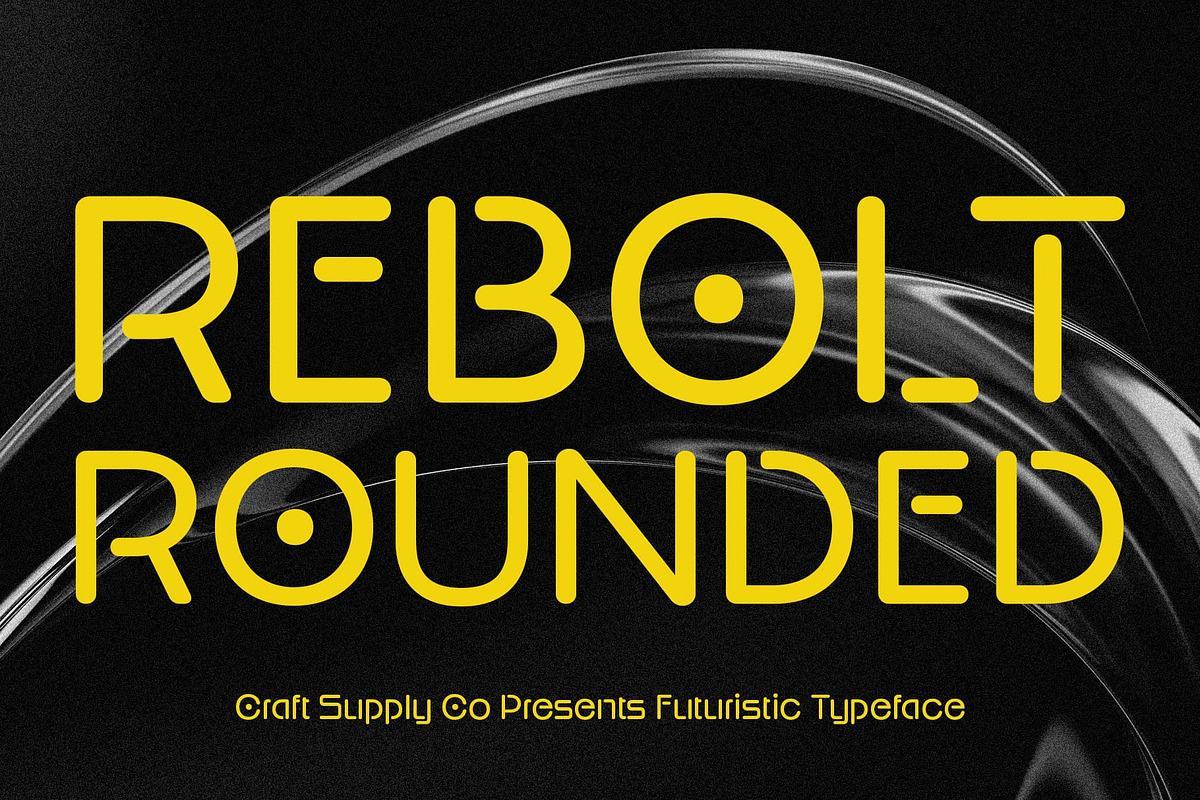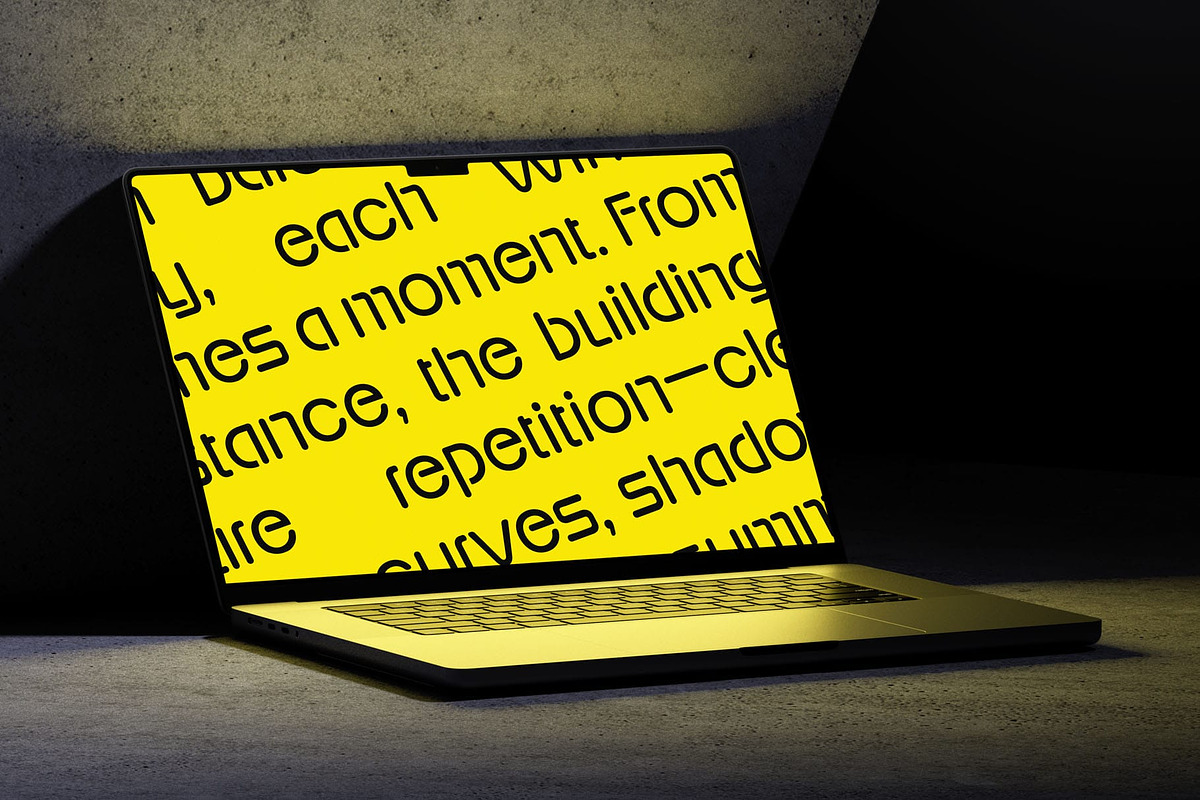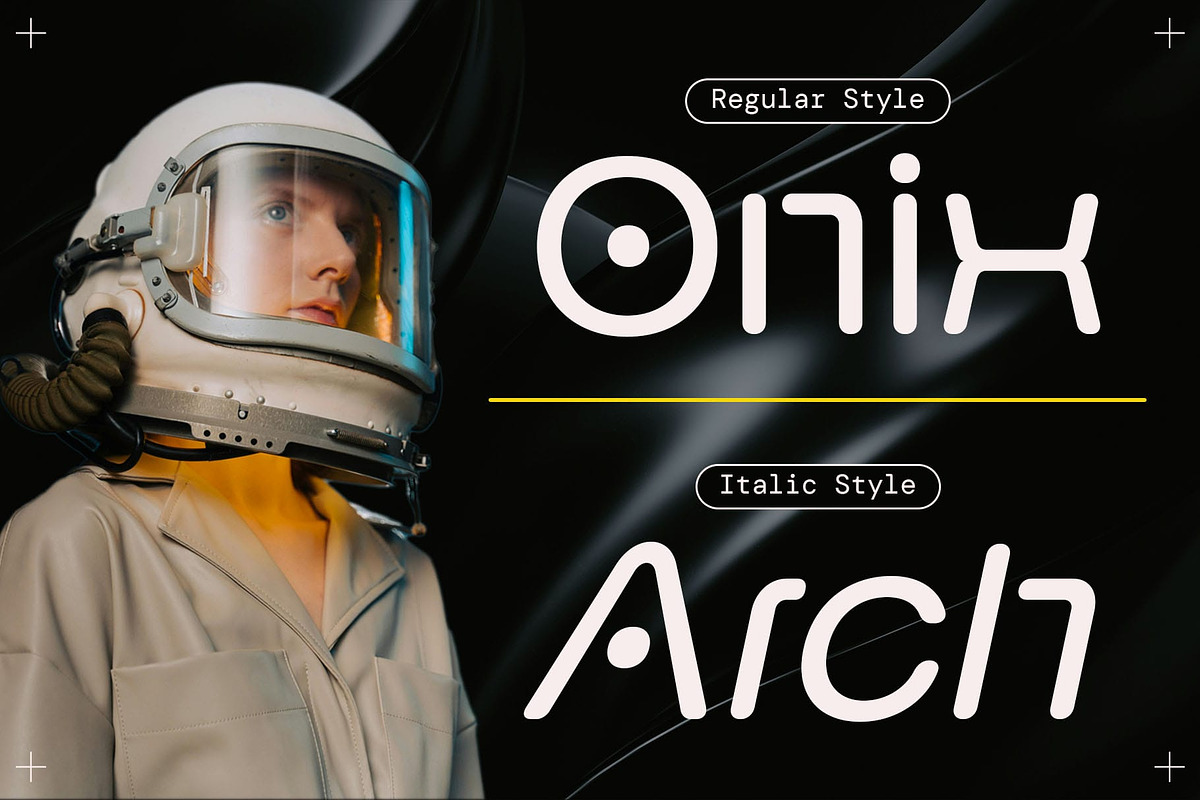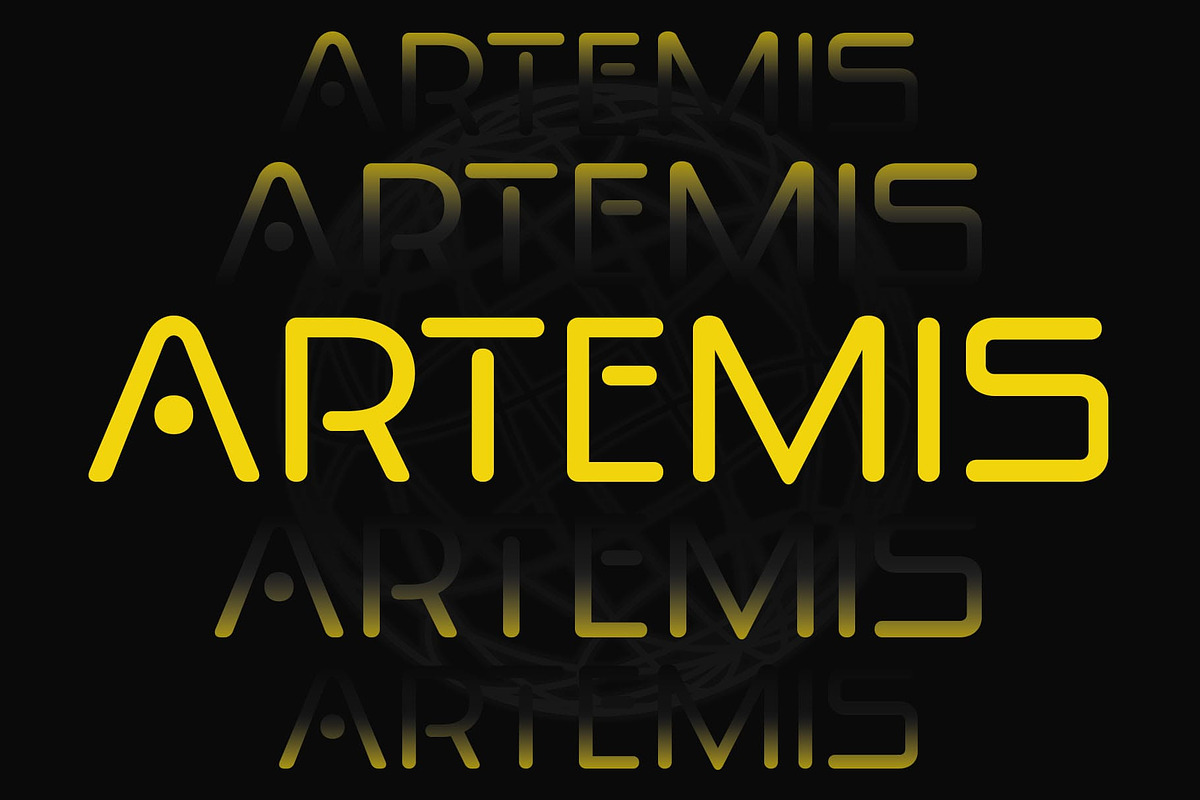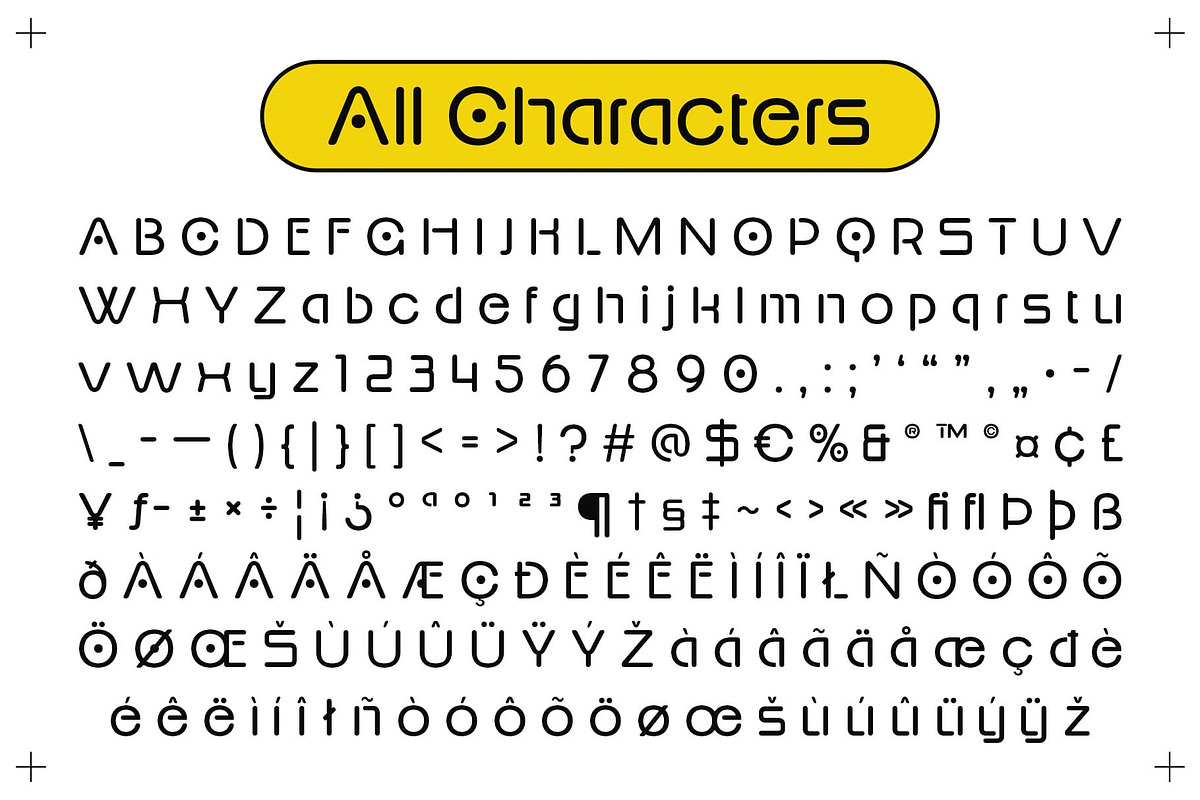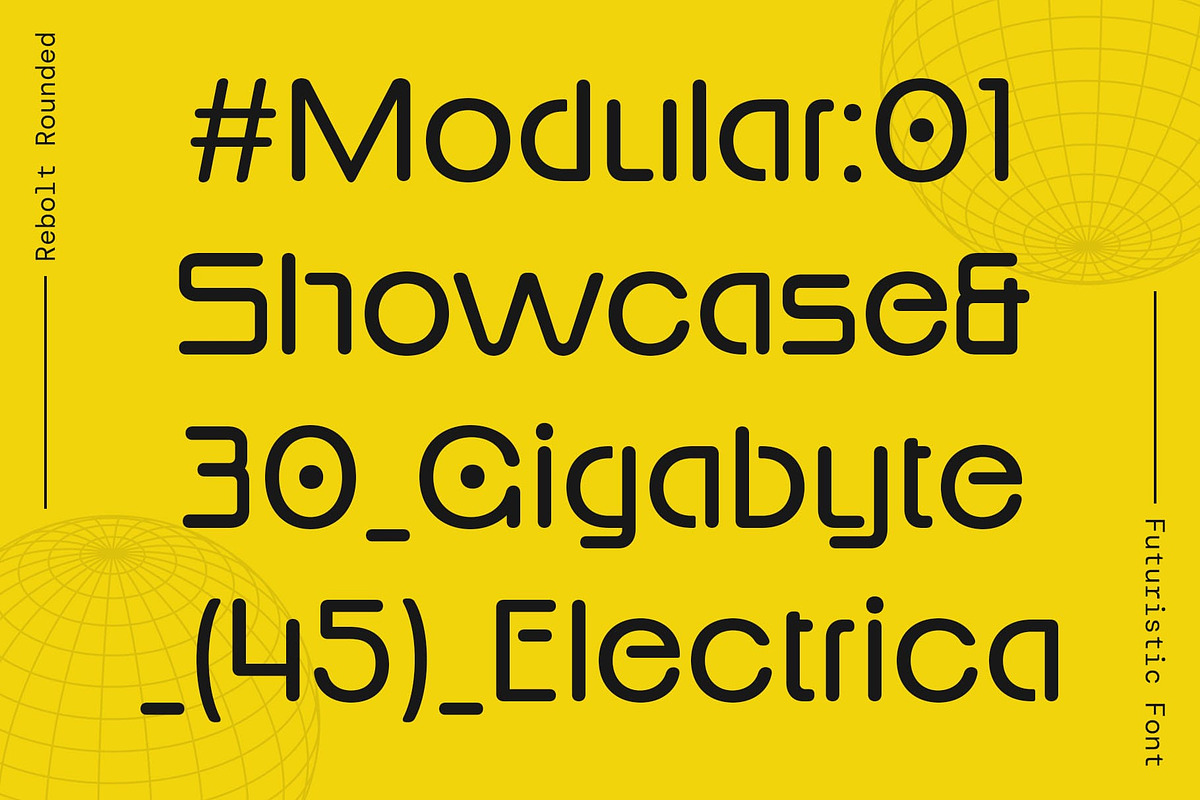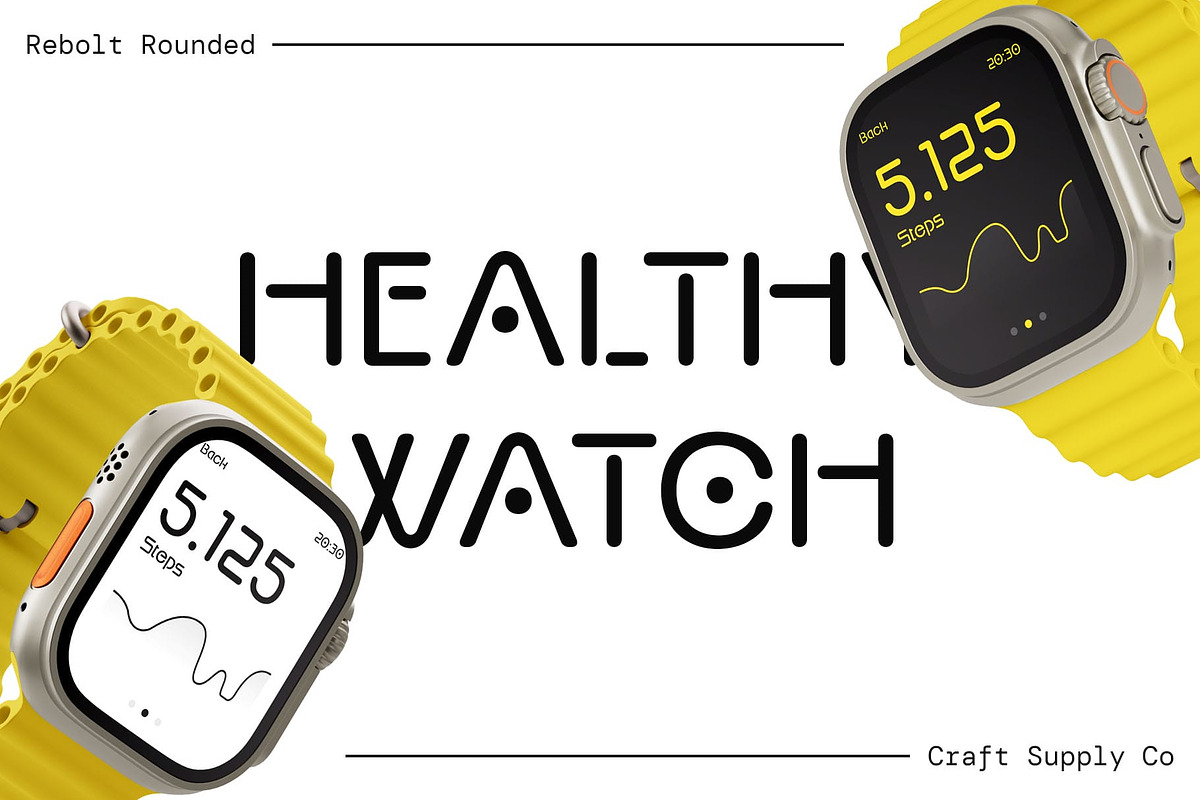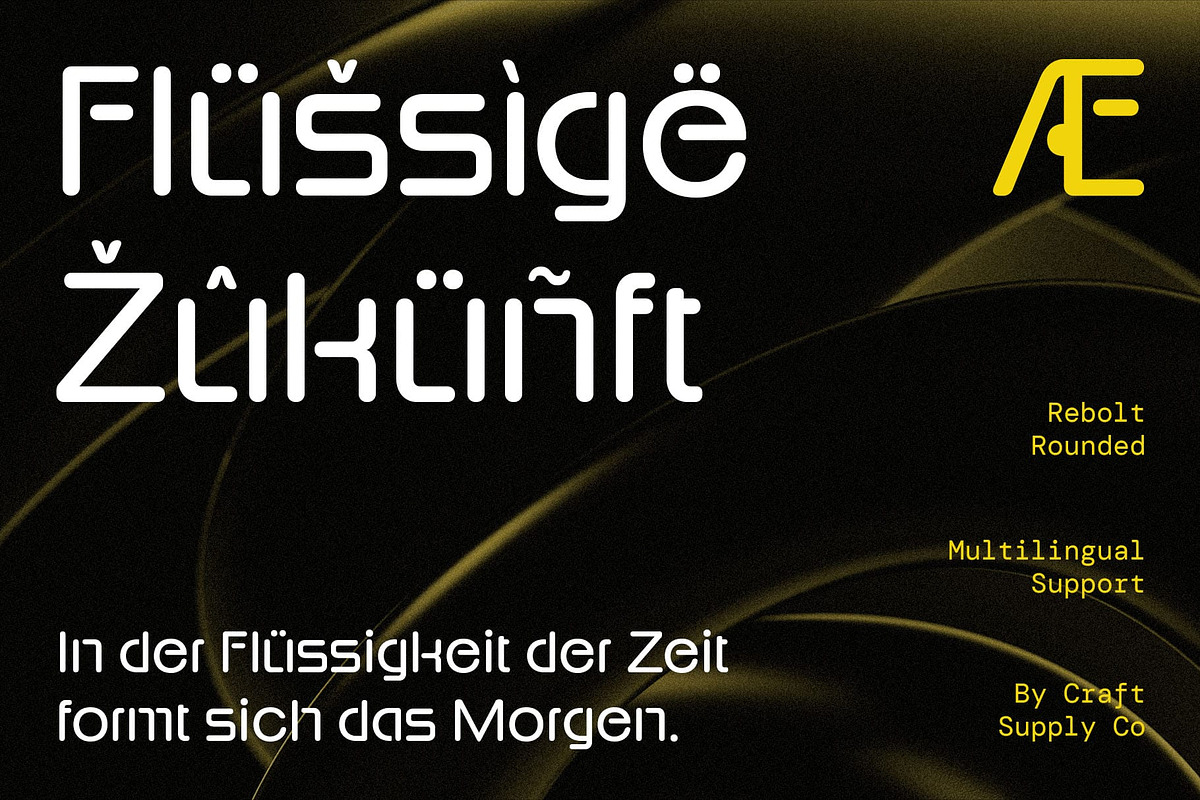
Rebolt Rounded
Rebolt Rounded Font – Future-Ready with a Human Touch
Tech-Inspired Modern Design Rebolt Rounded is a modern sans serif font shaped by techno-futuristic influences, featuring clean, geometric letterforms that evoke innovation and clarity. Its structure reflects the language of digital design—precise, efficient, and forward-thinking—making it ideal for use in contemporary tech environments.
Rounded Forms for a Human-Friendly Feel While rooted in minimalism and technology, Rebolt Rounded stands out with its rounded terminals, which soften the font’s clean edges. This subtle curvature introduces a welcoming and humanistic quality, ensuring your designs feel modern but never cold.
Minimal, Sleek, and Versatile With its streamlined letter shapes and balanced spacing, Rebolt Rounded offers a high level of legibility and visual polish. It adapts well to small screens, user interfaces, and branding systems, delivering a clear, sleek tone that remains approachable and stylish.
Ideal for Tech-Forward Visual Identities Rebolt Rounded is designed for projects that demand a sophisticated and future-oriented visual language—whether for app interfaces, software branding, digital products, or cutting-edge marketing visuals. It helps express innovation while retaining a strong sense of personality and warmth.
Conclusion: Bold Simplicity for the Future Rebolt Rounded blends futuristic clarity with rounded friendliness, creating a unique typographic identity that’s perfect for modern brands and digital environments. It’s where technology meets approachability—clean, confident, and distinctly contemporary.